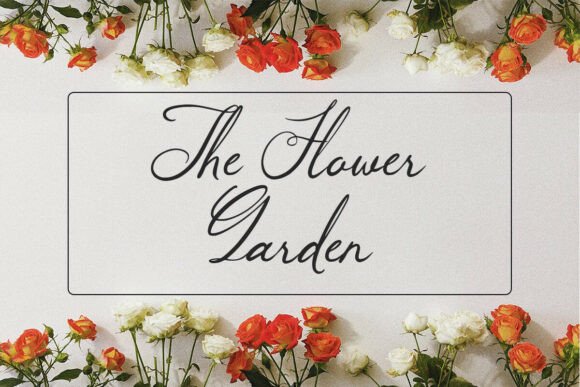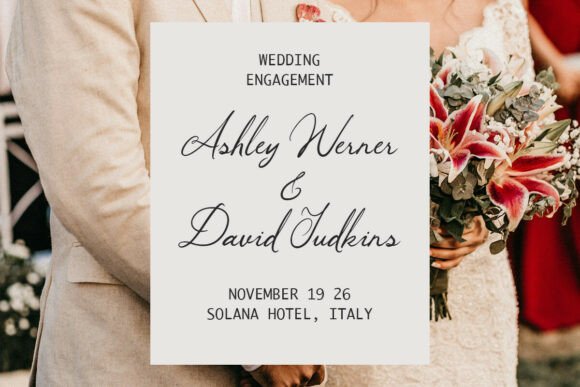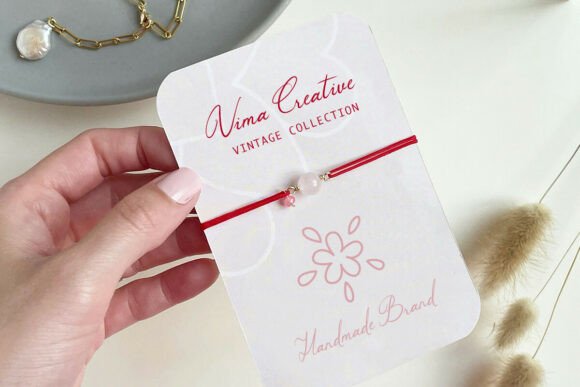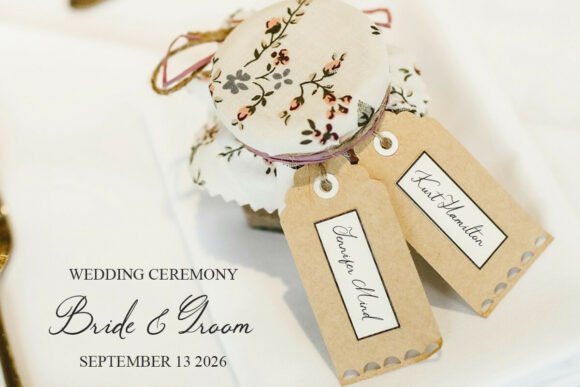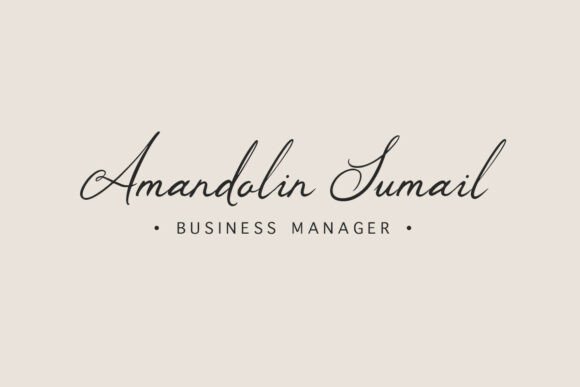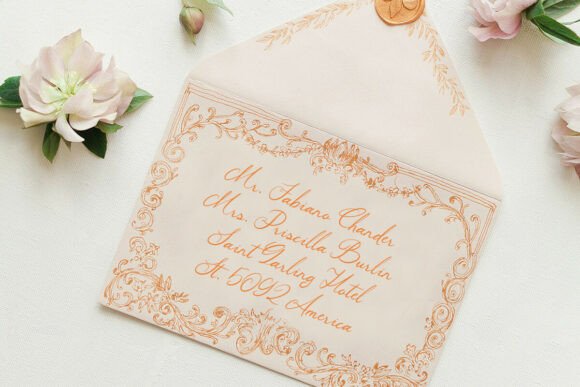
Introducing Choose Darling Font: Elevate Your Designs with Elegance and Sophistication
Are you searching for a font that exudes vintage charm, classic elegance, and a touch of romance? Look no further than Choose Darling Font, a stunning handwritten script calligraphy font that is sure to elevate your designs to the next level. In this article, we’ll delve into the unique features of Choose Darling Font, its versatility, and the various ways you can use it to create breathtaking designs.
What Makes Choose Darling Font Special?
Choose Darling Font is a beautifully crafted font that seamlessly blends natural handwritten calligraphy with simple ornaments and classic touches. The result is a font that boasts a natural rhythm and flow, giving it a unique and organic feel. The fusion of traditional calligraphy with modern elements creates a distinctive look that is both vintage and timeless.
One of the standout features of Choose Darling Font is its ability to evoke a sense of romance, elegance, and sophistication. The font’s intricate strokes, delicate flourishes, and classic touches make it perfect for designs that require a touch of luxury and refinement.
Perfect for Wedding Design and More
Choose Darling Font is an ideal choice for wedding design, including invitations, wedding stationery, and other related materials. The font’s romantic and vintage feel makes it perfect for creating beautiful and memorable wedding designs that will leave a lasting impression on your clients.
But Choose Darling Font is not just limited to wedding design. Its versatility makes it suitable for a wide range of applications, including:
• Branding: Create stunning logos, business cards, and letterheads that exude elegance and sophistication.
• Calligraphy Logos: Add a touch of luxury to your logos with Choose Darling Font’s beautiful calligraphy.
• Display Products: Use Choose Darling Font to create eye-catching display products, such as posters, flyers, and brochures.
• Invitation Design: Design beautiful invitations for special occasions, including weddings, baby showers, and birthday parties.
Why Choose Choose Darling Font?
So, why should you choose Choose Darling Font for your next design project? Here are just a few reasons:
• Unique and Distinctive: Choose Darling Font offers a unique and distinctive look that will set your designs apart from the rest.
• Versatile: The font is versatile and can be used for a wide range of applications, from wedding design to branding and more.
• Elegant and Sophisticated: Choose Darling Font exudes elegance and sophistication, making it perfect for designs that require a touch of luxury.
Tips for Using Choose Darling Font
Here are a few tips for using Choose Darling Font to get the most out of this beautiful font:
• Use it Sparingly: Choose Darling Font is a statement font, so use it sparingly to make a maximum impact.
• Experiment with Colors: Experiment with different colors to find the perfect combination that complements your design.
• Pair it with Other Fonts: Pair Choose Darling Font with other fonts to create a unique and interesting contrast.
In conclusion, Choose Darling Font is a stunning handwritten script calligraphy font that is perfect for designers and crafters looking to add a touch of elegance and sophistication to their designs. Its unique fusion of natural handwritten calligraphy with simple ornaments and classic touches makes it a versatile font that can be used for a wide range of applications. Whether you’re designing wedding invitations, branding materials, or display products, Choose Darling Font is sure to elevate your designs to the next level.